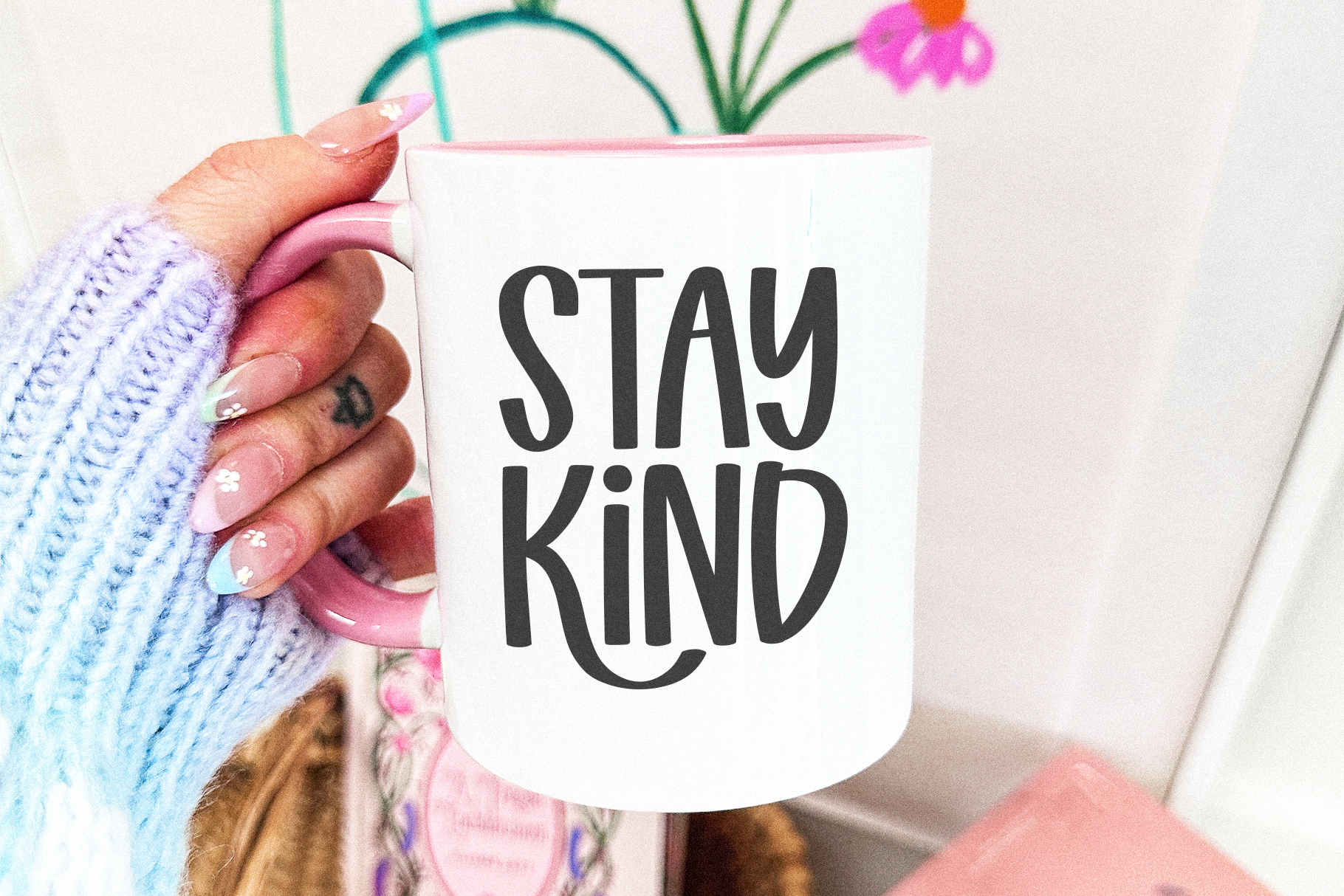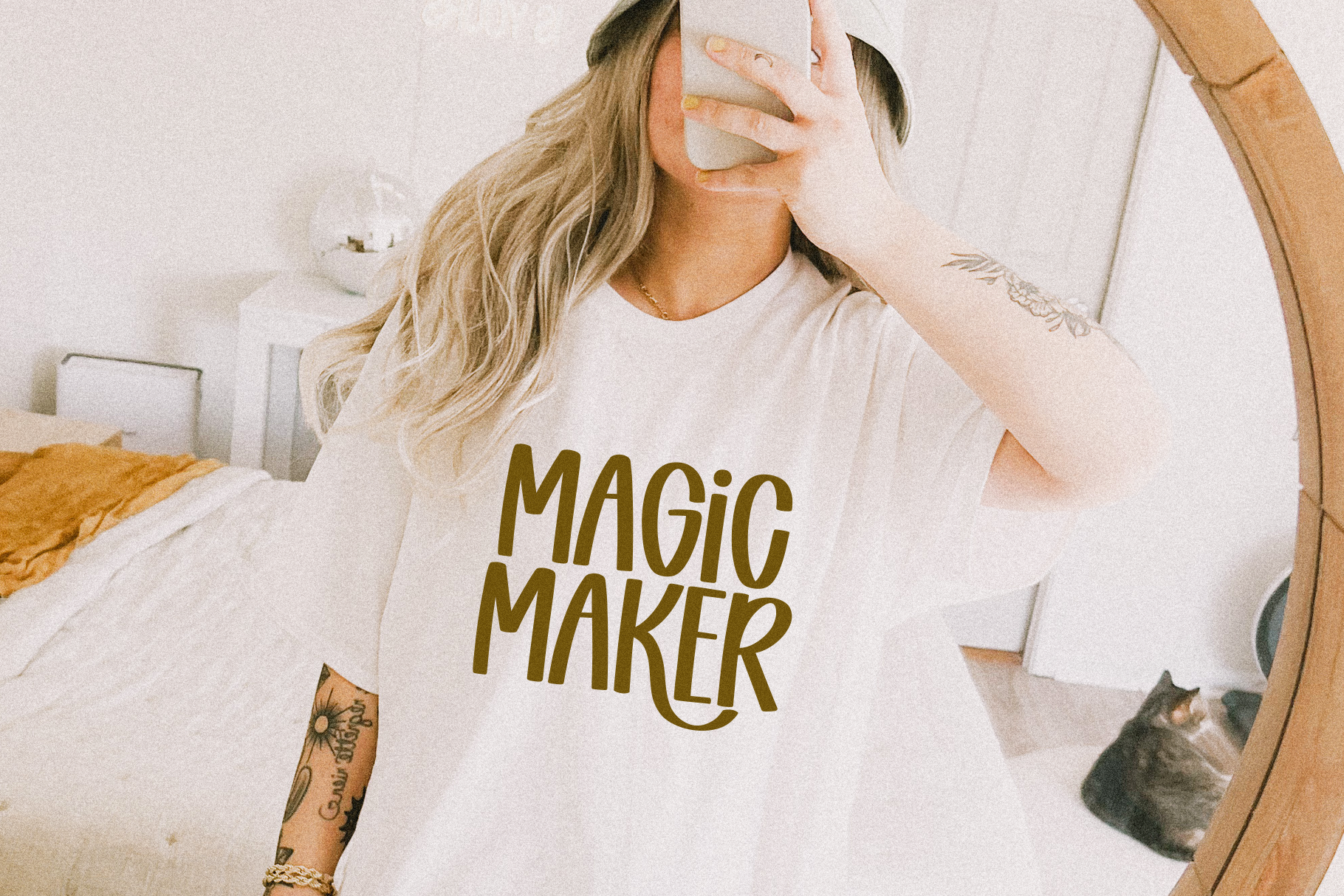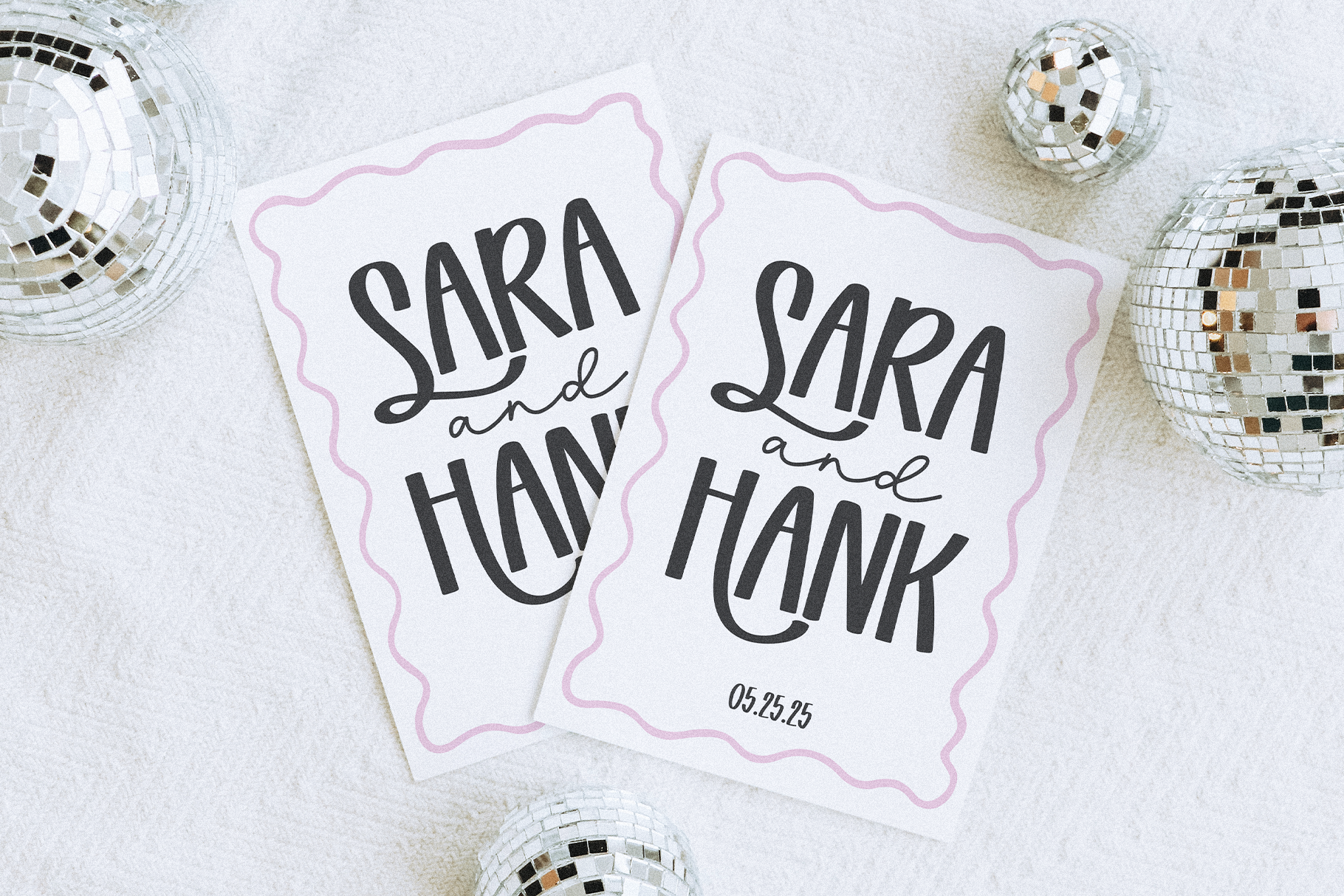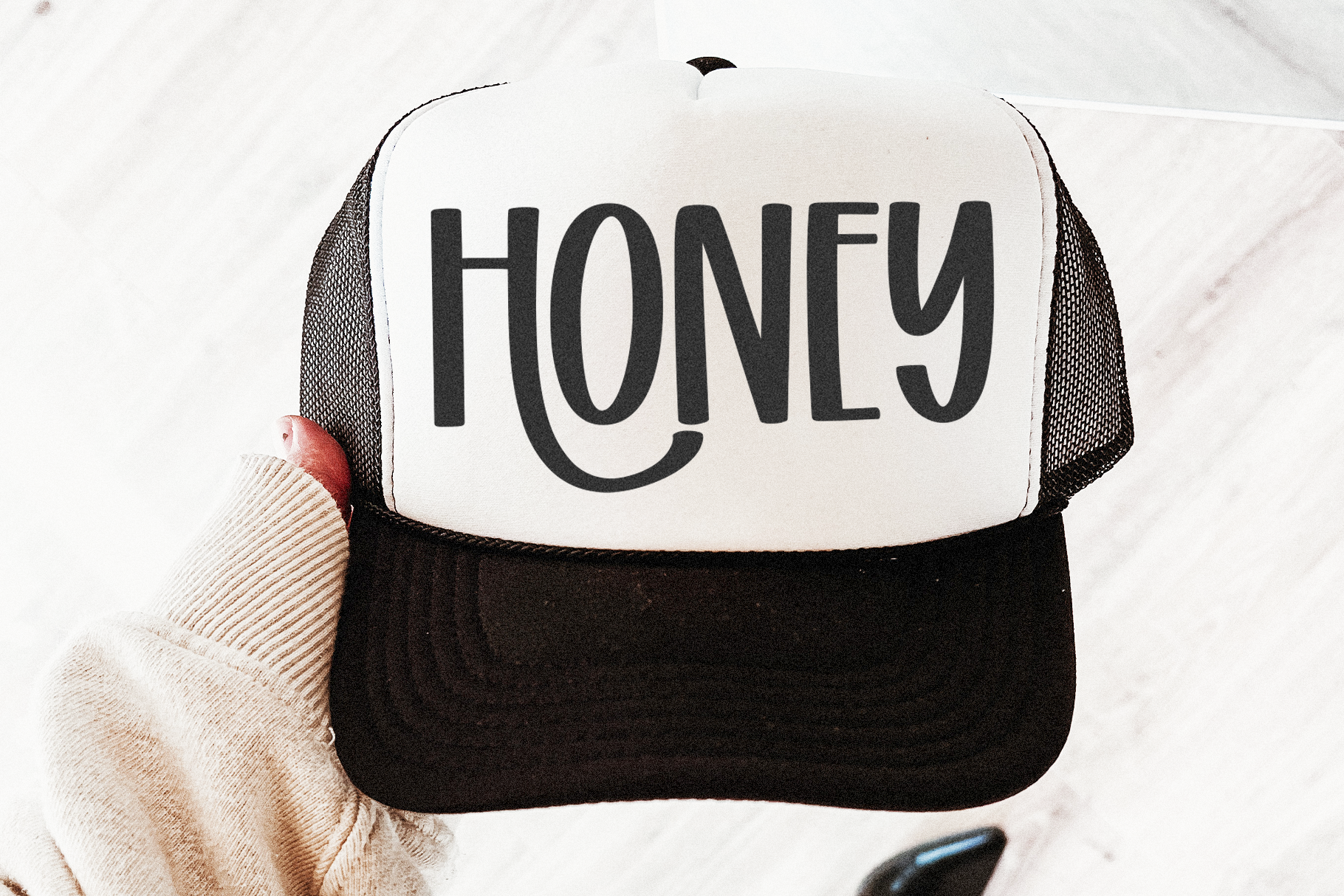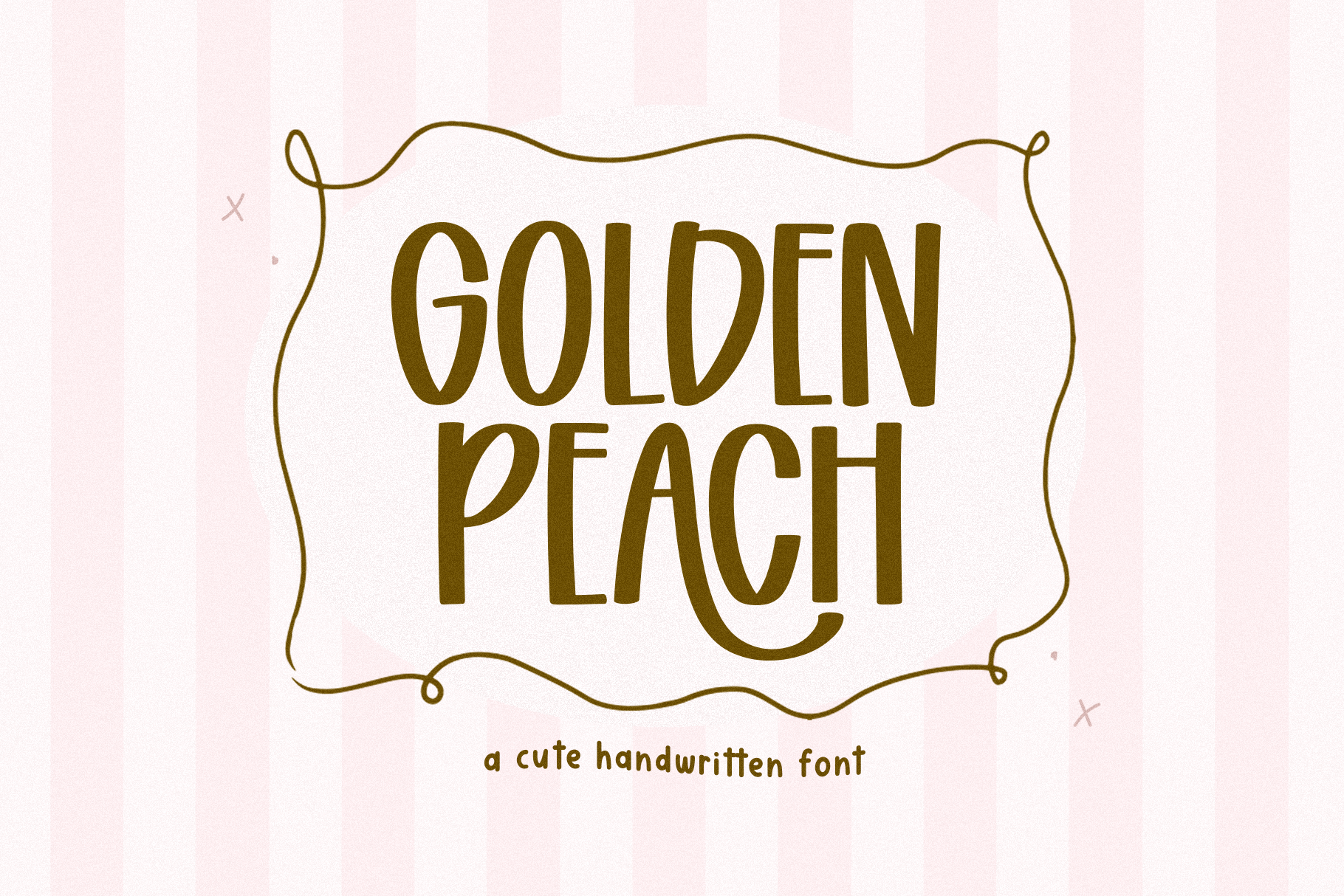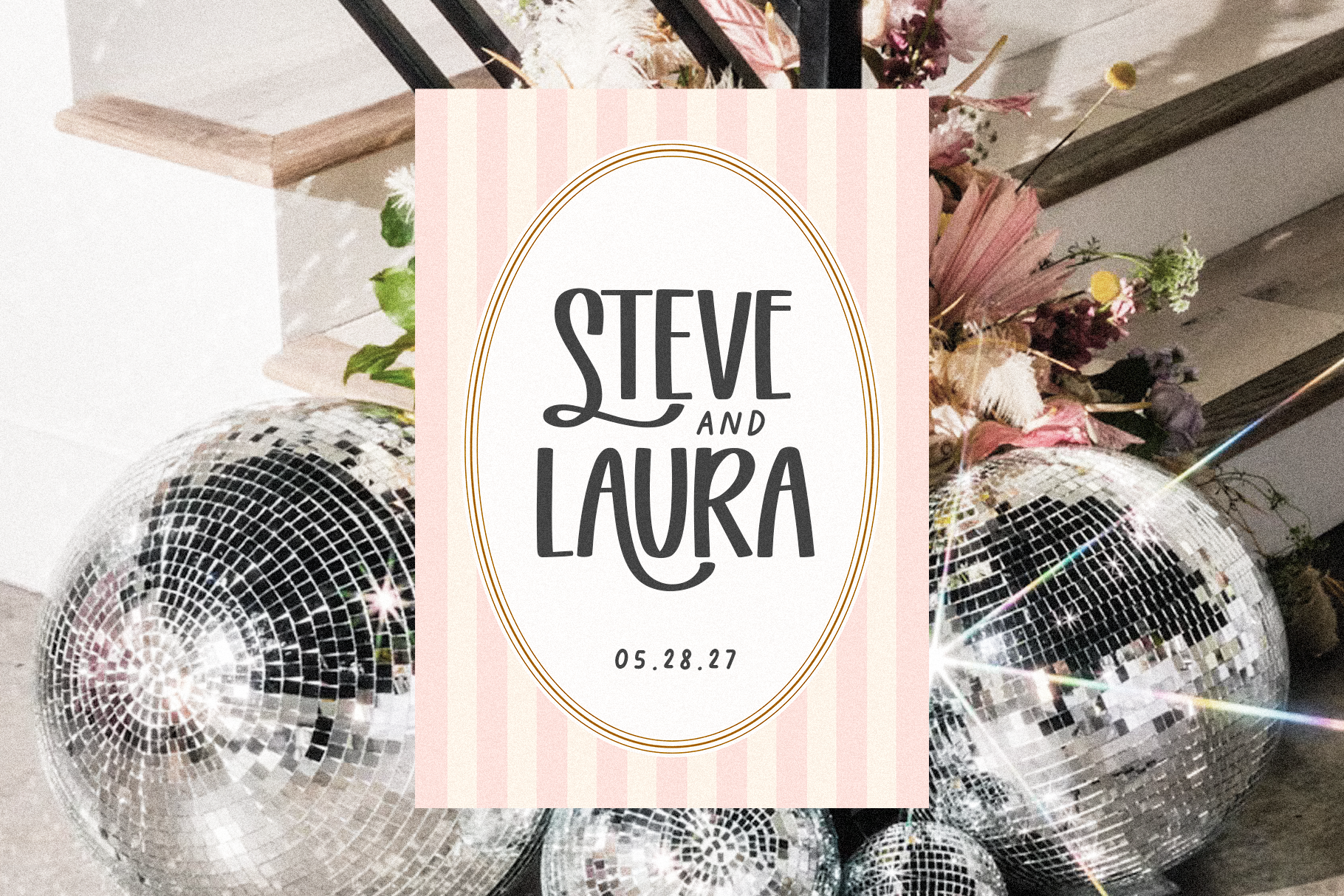
Golden Peach - Cute Handwritten Font
Golden Peach is a cute handwritten font with swashes!   This is an ALL CAPS font  Use capital letters for swash letters - A, B, H, J, K, L, M, R, S, Y   Golden Peach is perfect for: retro designs, Canva, cricut projects, stickers, logos, teachers, goodnotes, greeting cards, wedding signs, posters, social media and more!   Thank you!